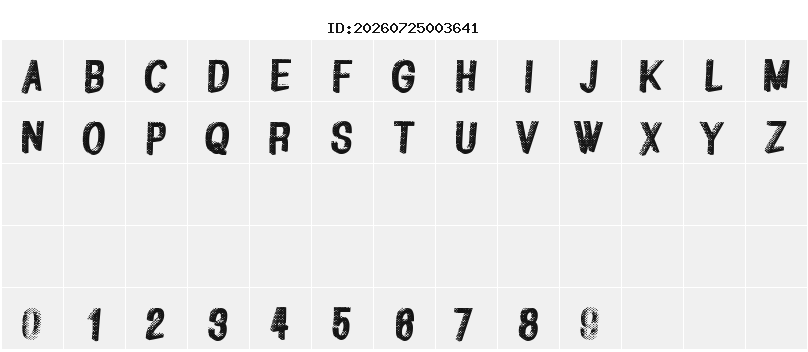
• Font Name: GreatShadow
• Designer: max infeld
• Description: Made at a Coffee in Ojai,california
GreatShadow.ttf is a modern, elegant sans-serif font designed for ultimate readability and visual harmony. Perfect for branding, headlines, web design, and print materials.